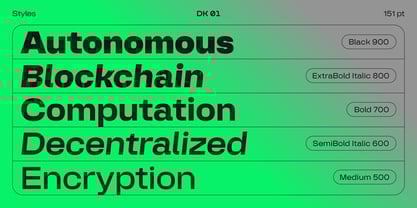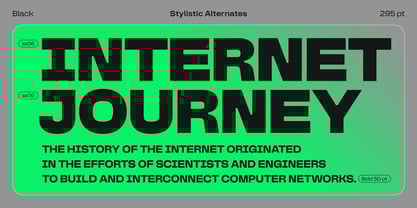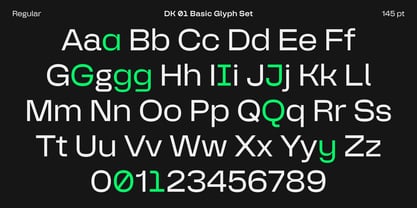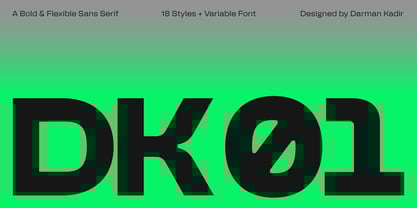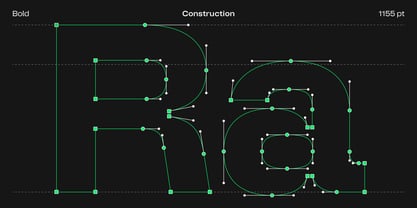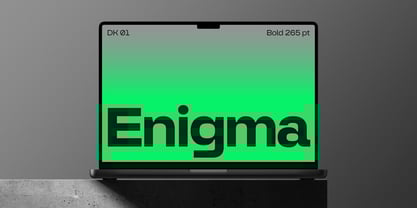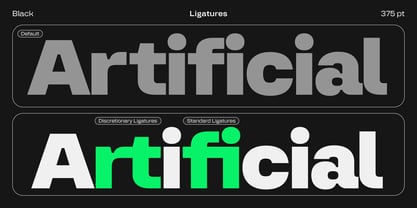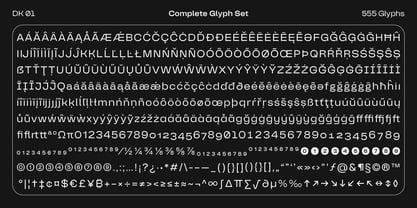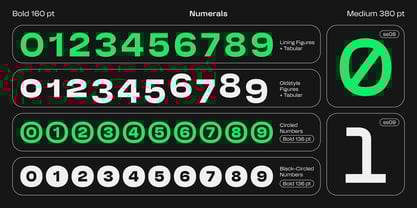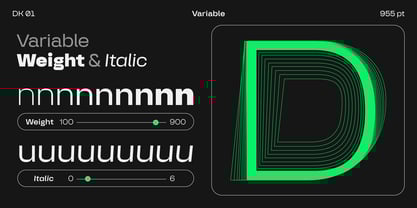
DK 01
by Darman Kadir
The DK 01 Font Family was designed by Darman Kadir and published by Darman Kadir. DK 01 contains 19 styles and family package options. More about this family
DK 01 is a bold and flexible sans-serif typeface, precisely designed to blend modern structures with functional aesthetics. It features sharp details and deep ink traps in its heavier weights, giving it a distinct and contemporary character.
Inspired by the digital era, DK 01 is built for the future of technology. Designed to meet the demands of modern interfaces, it ensures seamless readability in lighter weights while delivering bold, high-impact energy in its heavier styles.
Available in 18 styles, each with matching italics. Plus, variable font for ultimate flexibility in your designs!
Designers: Darman Kadir
Foundry: Darman Kadir
About Darman Kadir
A one-man type foundry established in 2025 by Indonesian graphic and type designer Darman Kadir. This independent studio focuses on creating high-quality fonts that balance functionality and creativity. With an emphasis on thoughtful craftsmanship and unique shapes, Darman’s work explores fresh ideas while maintaining practical versatility for a variety of design needs.